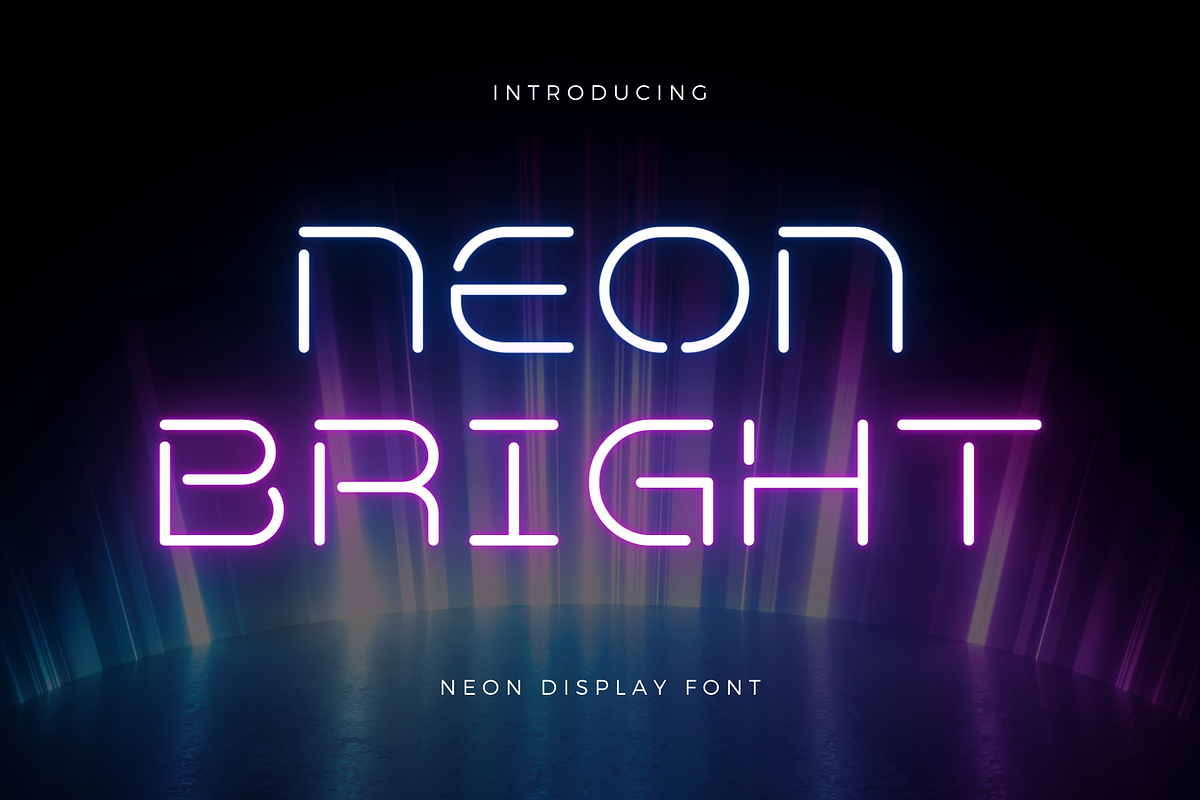
Neon Bright – Neon Display Font Free Download
Please note, to use this font for commercial purposes, you must purchase the full version. Neon Bright is a bold and vibrant display font that brings the electric energy of neon lights to your designs. Perfect for logos, posters, signage, and other creative projects, this font offers a dynamic, futuristic style that grabs attention. Whether you're designing for a nightclub, event promotion, or a modern brand, Neon Bright adds a glowing, eye-catching touch to your work. Test it out and enjoy free download access for personal use. Experience the electrifying style of Neon Bright – Neon Display Font Free Download before purchasing the commercial license. Illuminate your designs with the bold and bright Neon Bright.